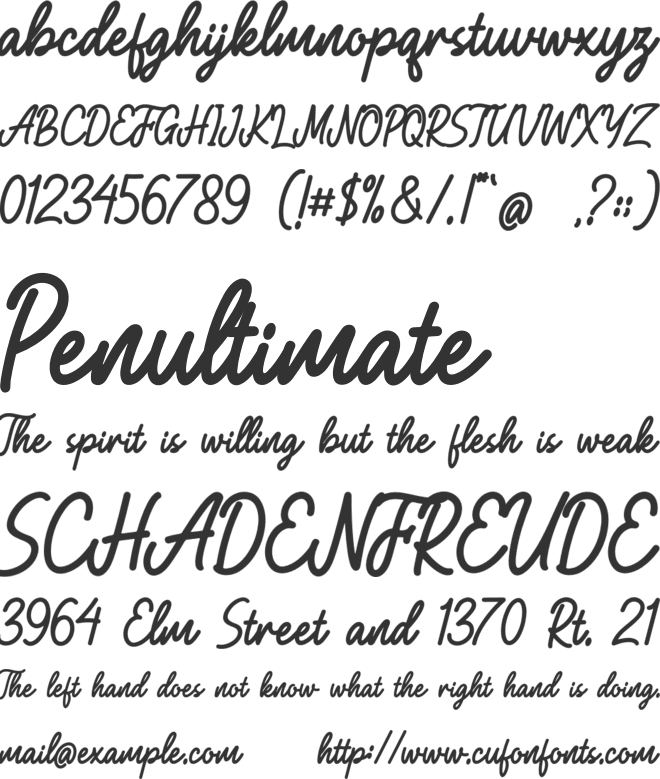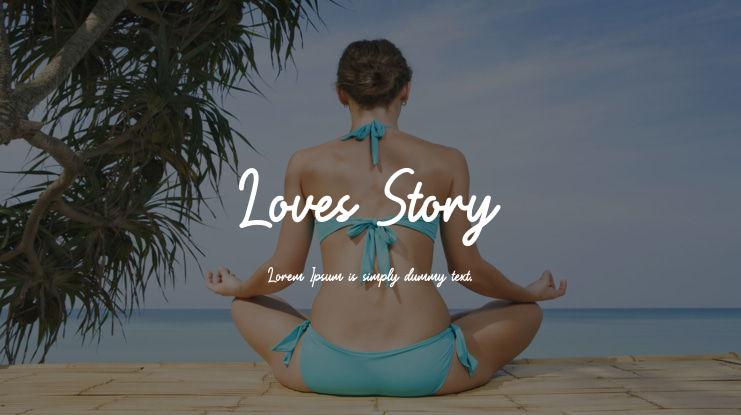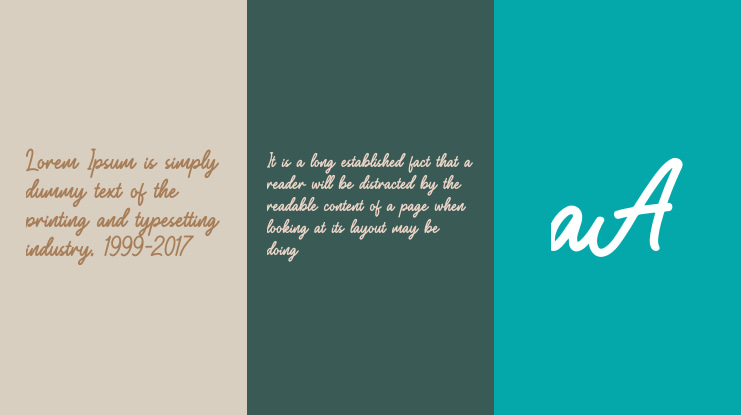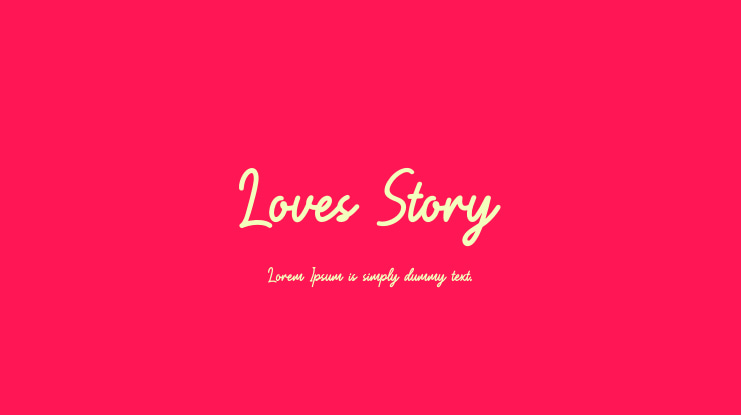
Hello, ladies and gentlemen. I am the Loves Story font, a charming handwritten monoline with meticulous kerning. My design features lovely connections, beginning and ending swashes, and a range of additional typeface features.
Loves Story is highly Instagrammable and user-friendly on both Windows and Mac platforms. It’s perfect for branding, wedding invitations, logos, business cards, letterheads, cafe menus, shop and company names, wedding invitation cards, product packaging, clothing branding, websites or social media, and countless other creative uses.